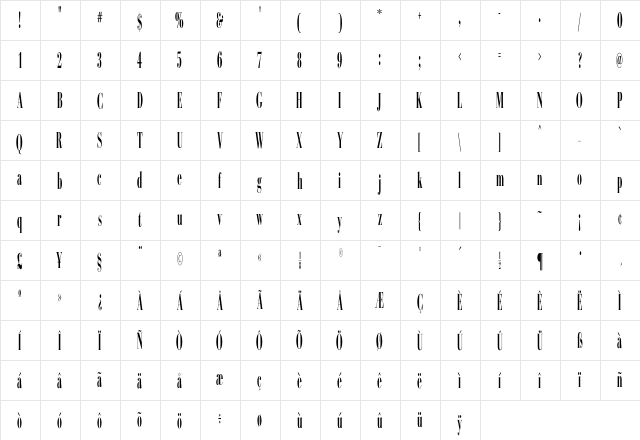
Campanile Regular
Design Context for Campanile Typeface
Campanile offers clean, dependable letterforms without strong stylistic allegiance, making it a practical choice for designers who need flexibility.
Pro Tip: Use Campanile in both headline and body roles to test its range before committing to a single application.